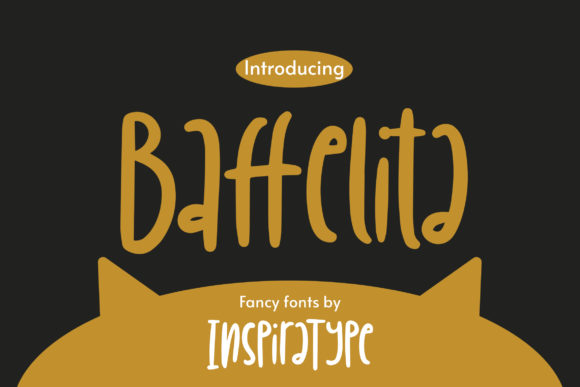
Get ready to unveil the tantalizing world of Baffelita Font, where whimsy meets creativity, creating enchanting designs that leave an indelible mark. Dive into the realm of comic lettering and embark on an artistic journey like no other, where every stroke and character dances with infectious joy. Let Baffelita Font ignite your imagination and lead you to a universe of storytelling magic.
Journey into the world of Baffelita Font, a playful and alluring display font designed to captivate and inspire. With its friendly and casual charm, Baffelita Font instantly becomes a darling of creativity, transforming your designs into captivating masterpieces. Whether conjuring whimsical comics or crafting enchanting invitations, Baffelita Font flawlessly adapts to your artistic vision. Unleash the potential of Baffelita Font and unlock a world of boundless possibilities.
Baffelita Font, the brainchild of InspiraType, is a captivating display font tailored to ignite your creativity and elevate your designs to new heights. Step into the spotlight with Baffelita Font and create captivating headlines that demand attention, charming logos that exude personality, and eye-catching social media graphics that make a lasting impression. From retro-inspired posters to vibrant invitations, Baffelita Font seamlessly adapts to your design needs, leaving an imprint of originality and delight.